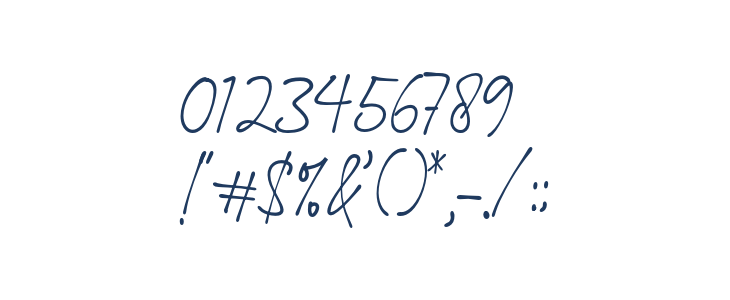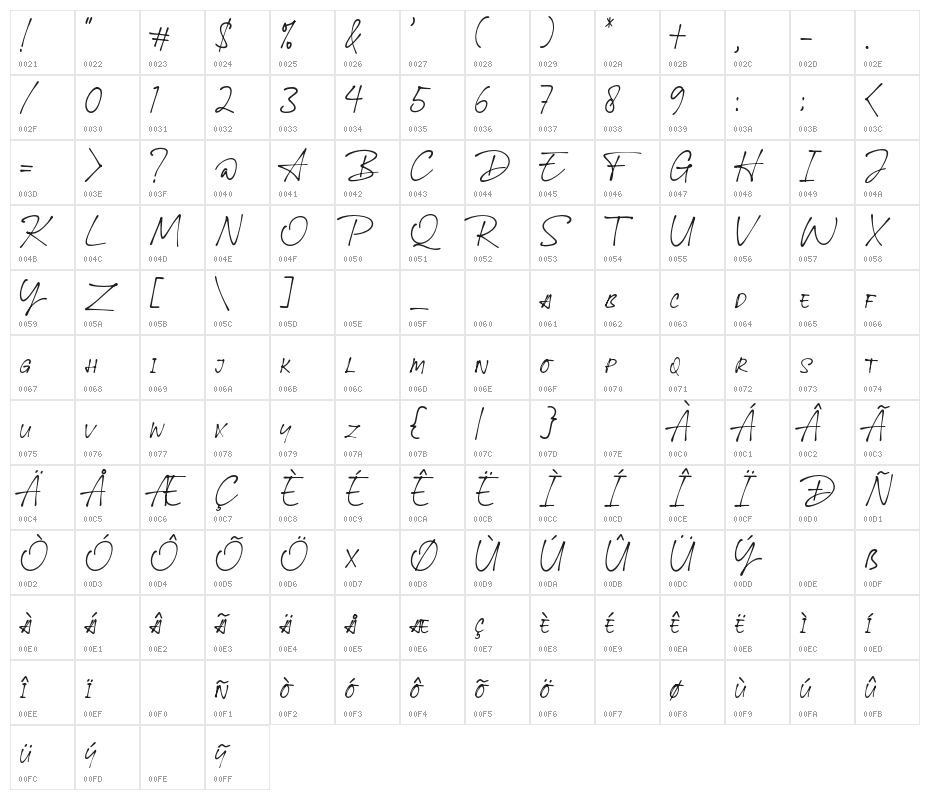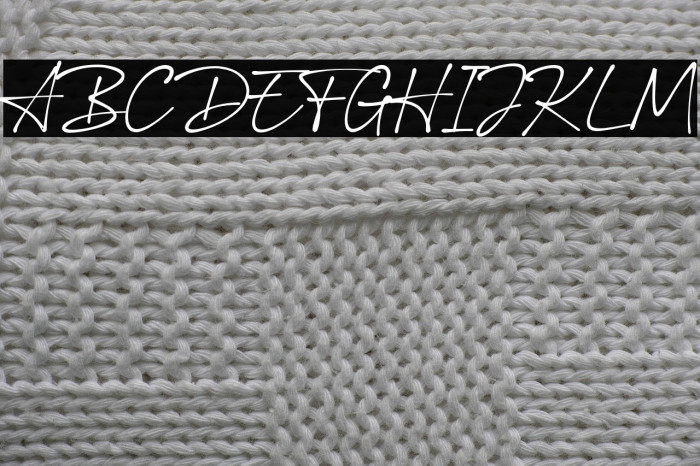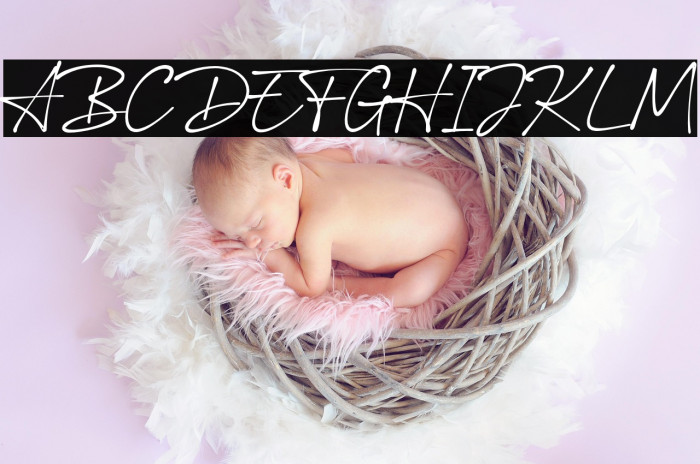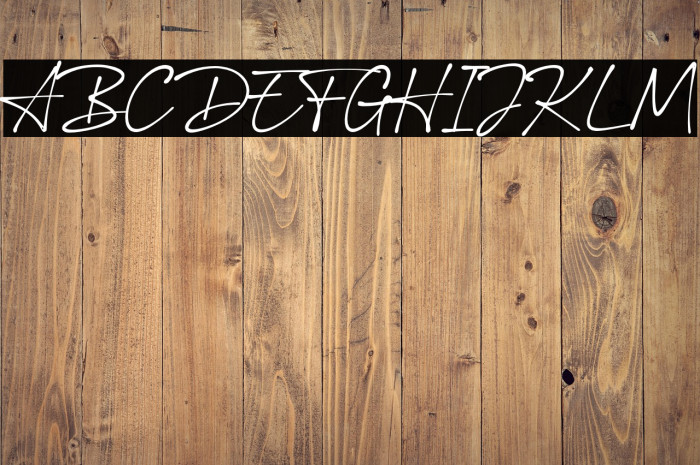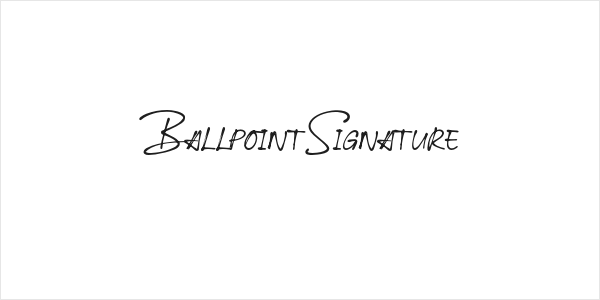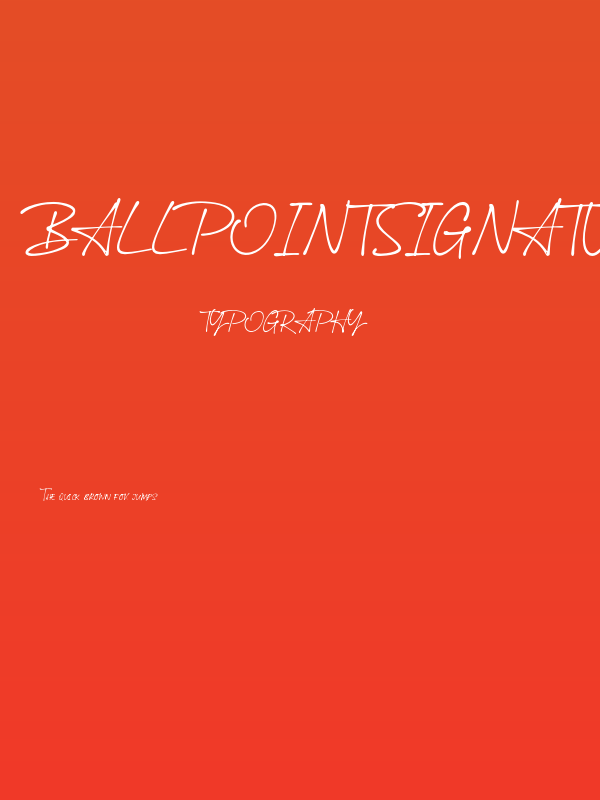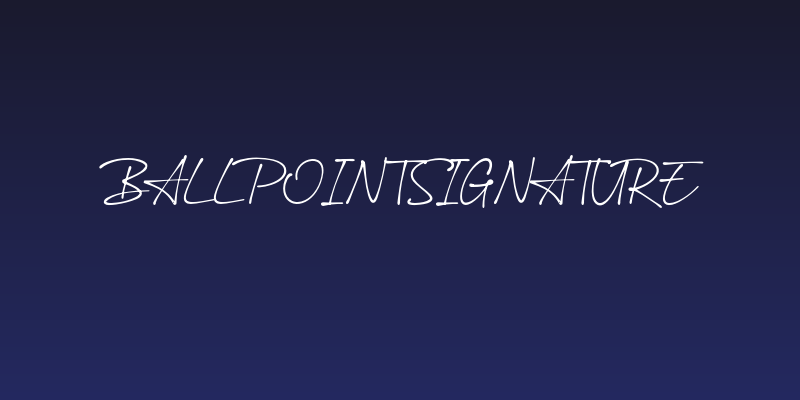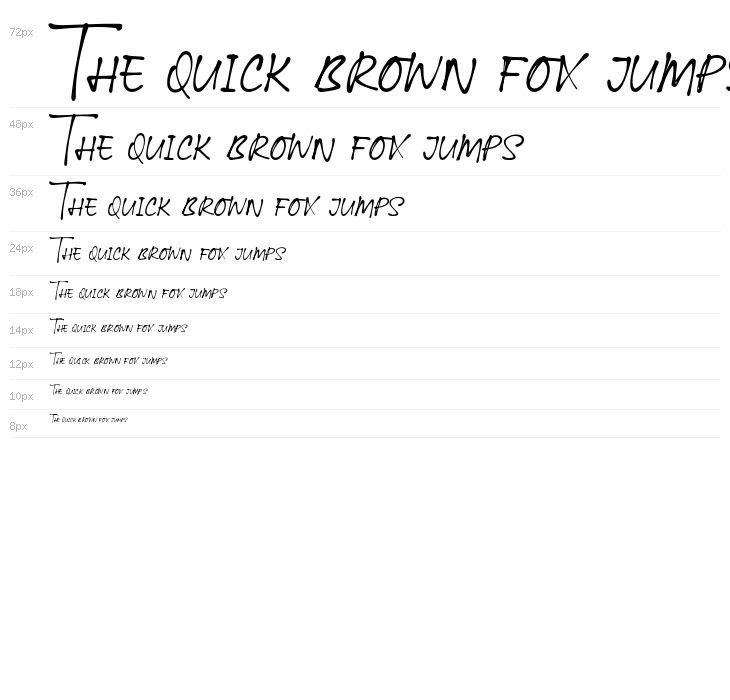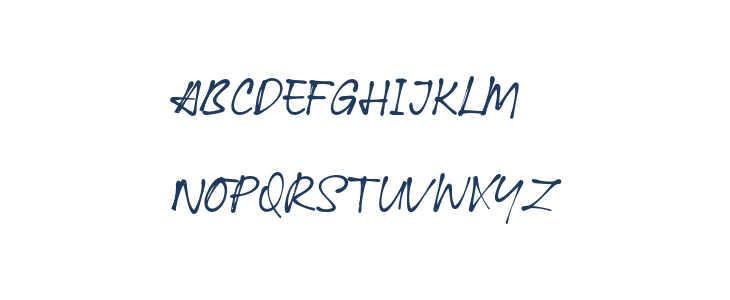
BallpointSignature Font
BallpointSignature Description
This font exudes a casual and personal touch, reminiscent of a handwritten signature with a ballpoint pen. The letters are fluid and connected, giving a sense of movement and personality. The uppercase letters maintain a consistent height, while the lowercase letters have a slight slant, enhancing the handwritten feel. The numerals are clear and legible, matching the style of the letters. Special characters are included, maintaining the same flowing style. This font is perfect for projects that require a personal or informal touch, such as invitations, greeting cards, or branding materials that aim to convey warmth and approachability.
Overall StyleCasual, Personal
Use CaseLogos, Invitations, Personal notes
Proposed ProjectsIdeal for invitations, greeting cards, personal branding, and informal communications.